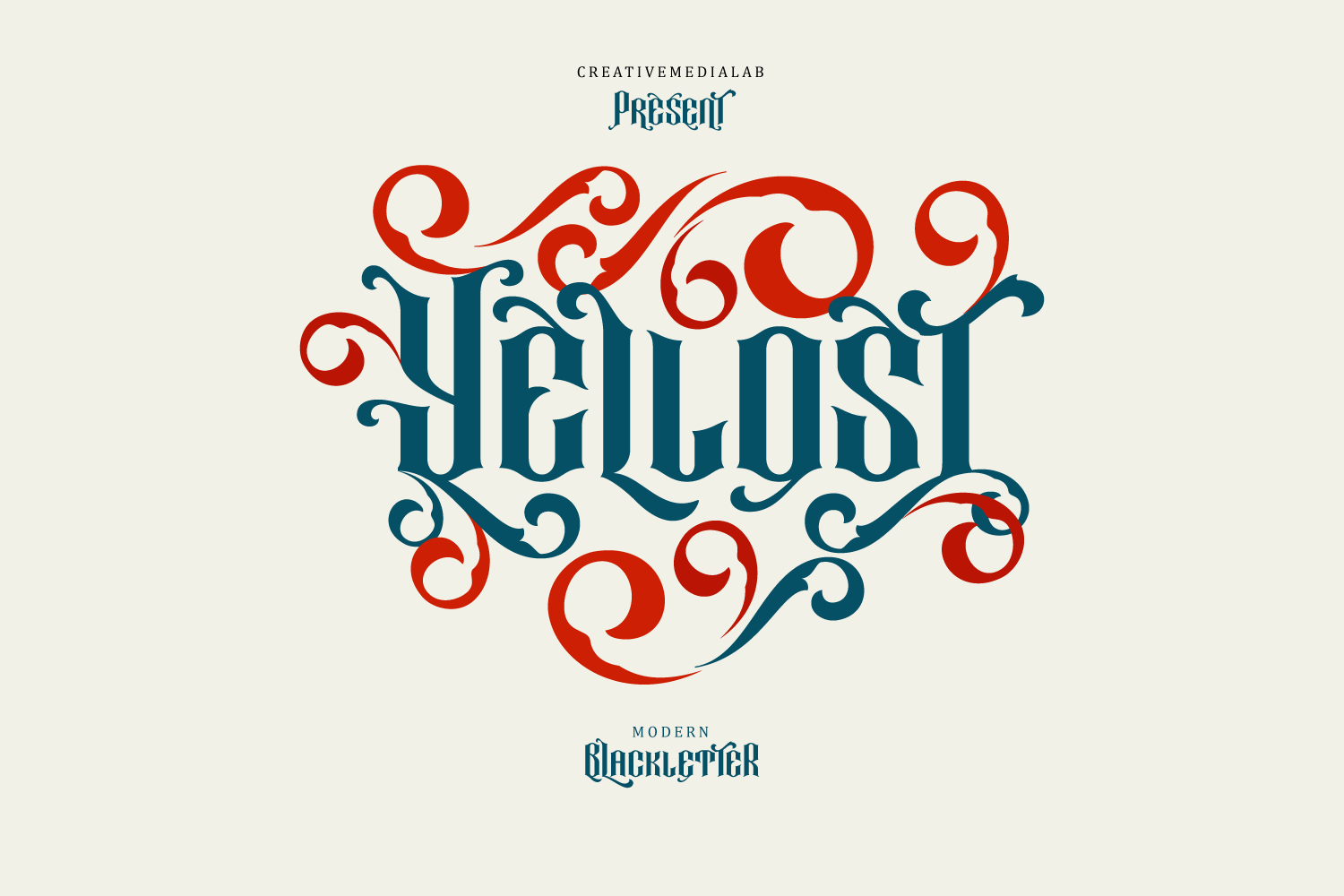
Yellost Font
Introducing Yellost Modern Blackletter, a unique blackletter for your design. With tons of alternate to combine with each character to make a unique and strong word for your next projects. Good for display font, tattoo font, gothic, clothing brand, label, packaging and many more. Bonus vector ornaments in the download file.